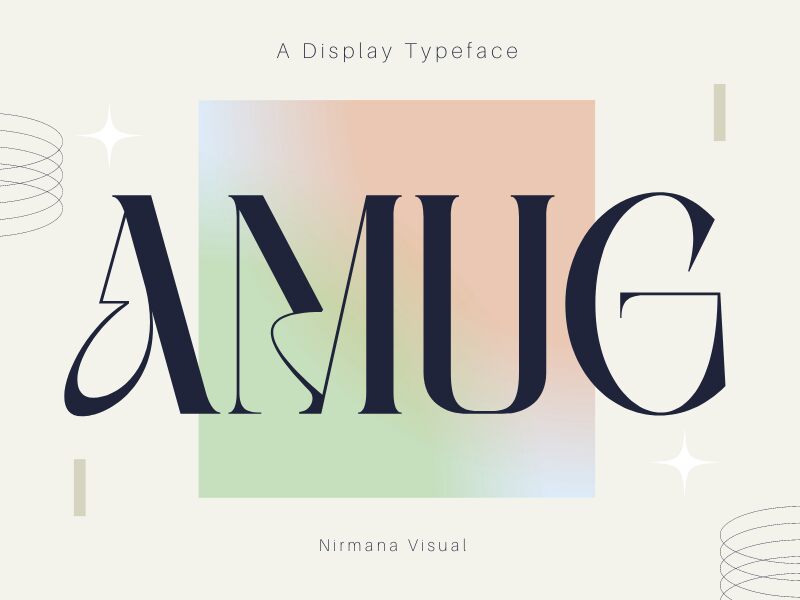
Amug, the exceptional creation by Nirmana Visual, is a captivating serif font that exudes elegance and sophistication. With its semi-condensed width, this versatile typeface adds a touch of refinement to any project. Perfect for luxurious branding, editorial design, or high-end packaging, Amug effortlessly elevates your creations to new heights. Its timeless appeal and legible characters make it an ideal choice for both print and digital media. Embrace the allure of Amug and immerse your projects in an aura of timeless beauty and class.